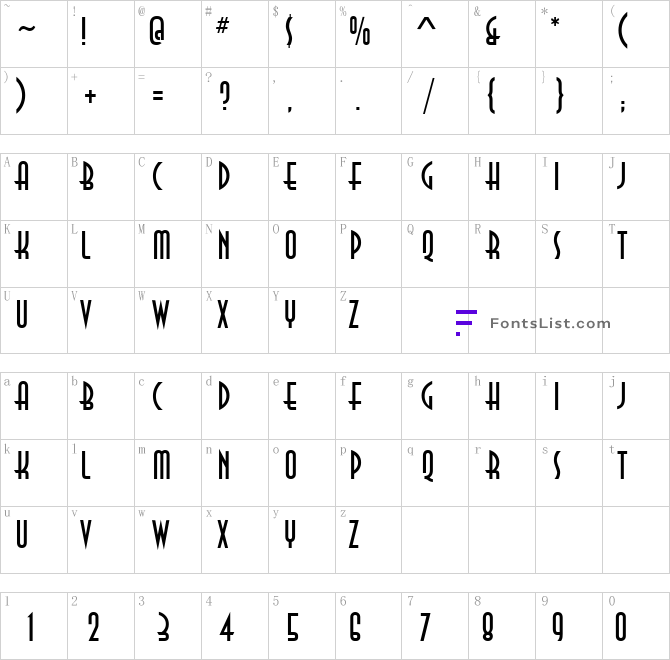
- Font Name:Anastasia
Anastasia-Regular.ttf is a very beautiful artistic font, Anastasia-Regular.ttf is widely used in the design and printing of various books and pictures,Anastasia-Regular.ttf has a strong visual impact,Anastasia-Regular.ttf is a commonly used font in newspapers, magazines and books, and is used in posters, e-commerce Poster design, store design, logo design, font design and other fields.Anastasia-Regular.